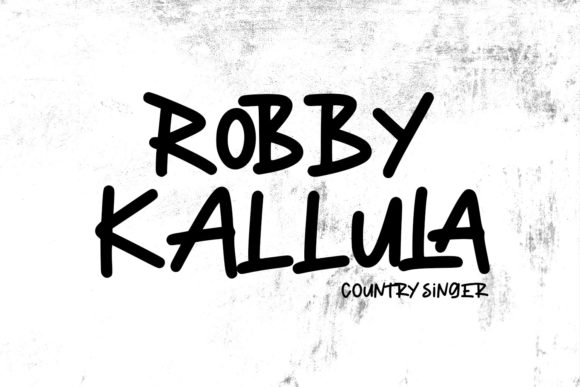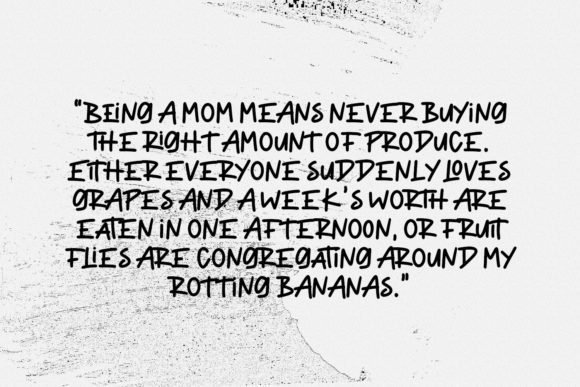
Crisp Cracks Font
db-ku.com - Script & Handwritten -- Crisp Cracks is a simple, quirky and adaptable handwritten font. Its informal style and casual vibe will make this font a go-to choice for each of the creations that require a relaxed touch.